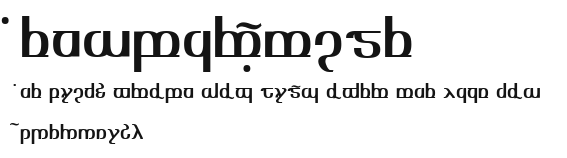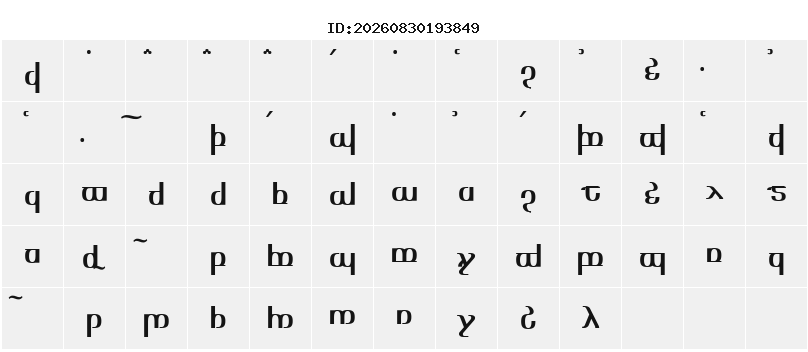
TengwarOptime Preview
• Font Name: TengwarOptime
• Character Count: 208
• Designer: Peter Wiegel
• Manufacturer: Peter Wiegel
About TengwarOptime.ttf
TengwarOptime.ttf is a modern, elegant sans-serif font designed for ultimate readability and visual harmony. Perfect for branding, headlines, web design, and print materials.